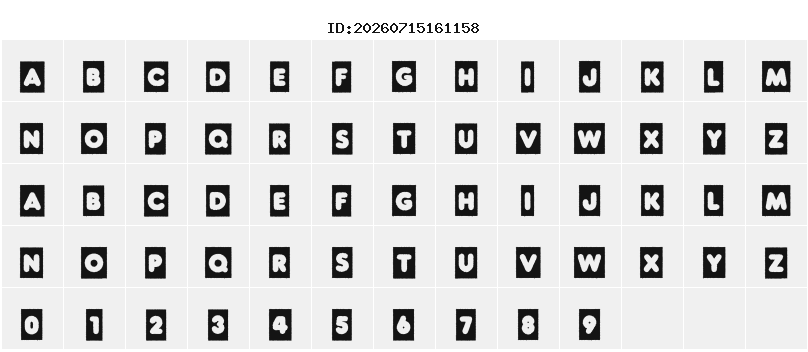
• Font Name: a_RunderCmRgh
• Full Font Name: a_RunderCameoRough
• Designer: W.Chufarofsky & M.Slutsker
About a_RunderCmRgh.ttf
a_RunderCmRgh.ttf is a modern, elegant sans-serif font designed for ultimate readability and visual harmony. Perfect for branding, headlines, web design, and print materials.